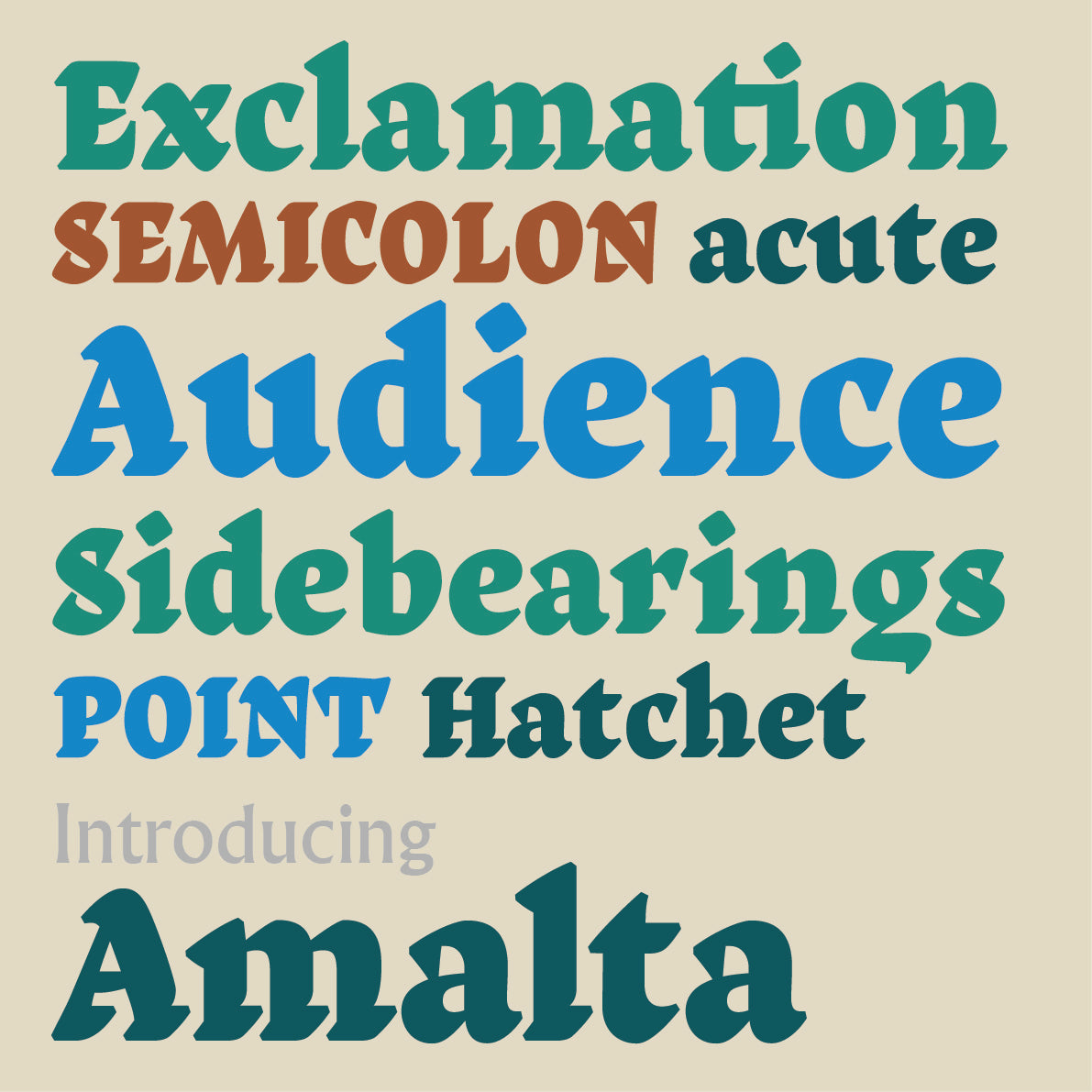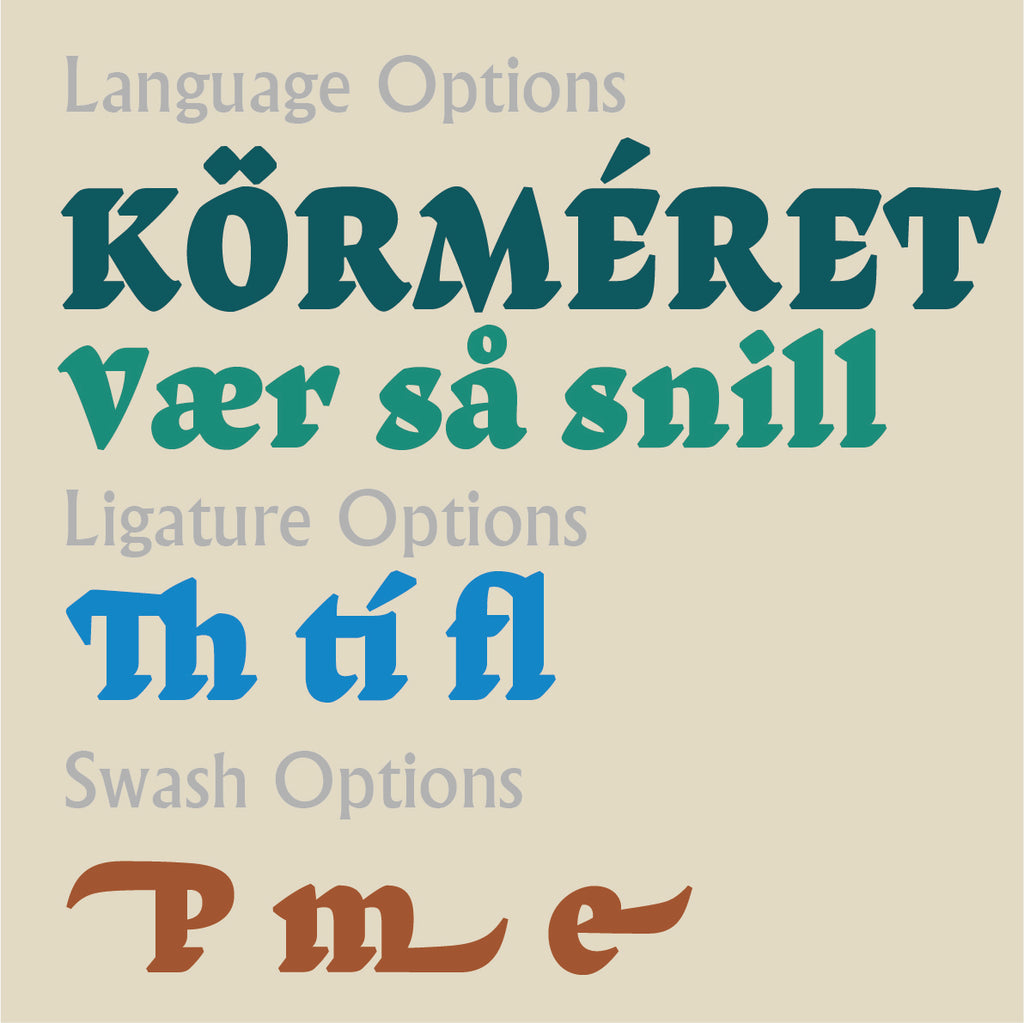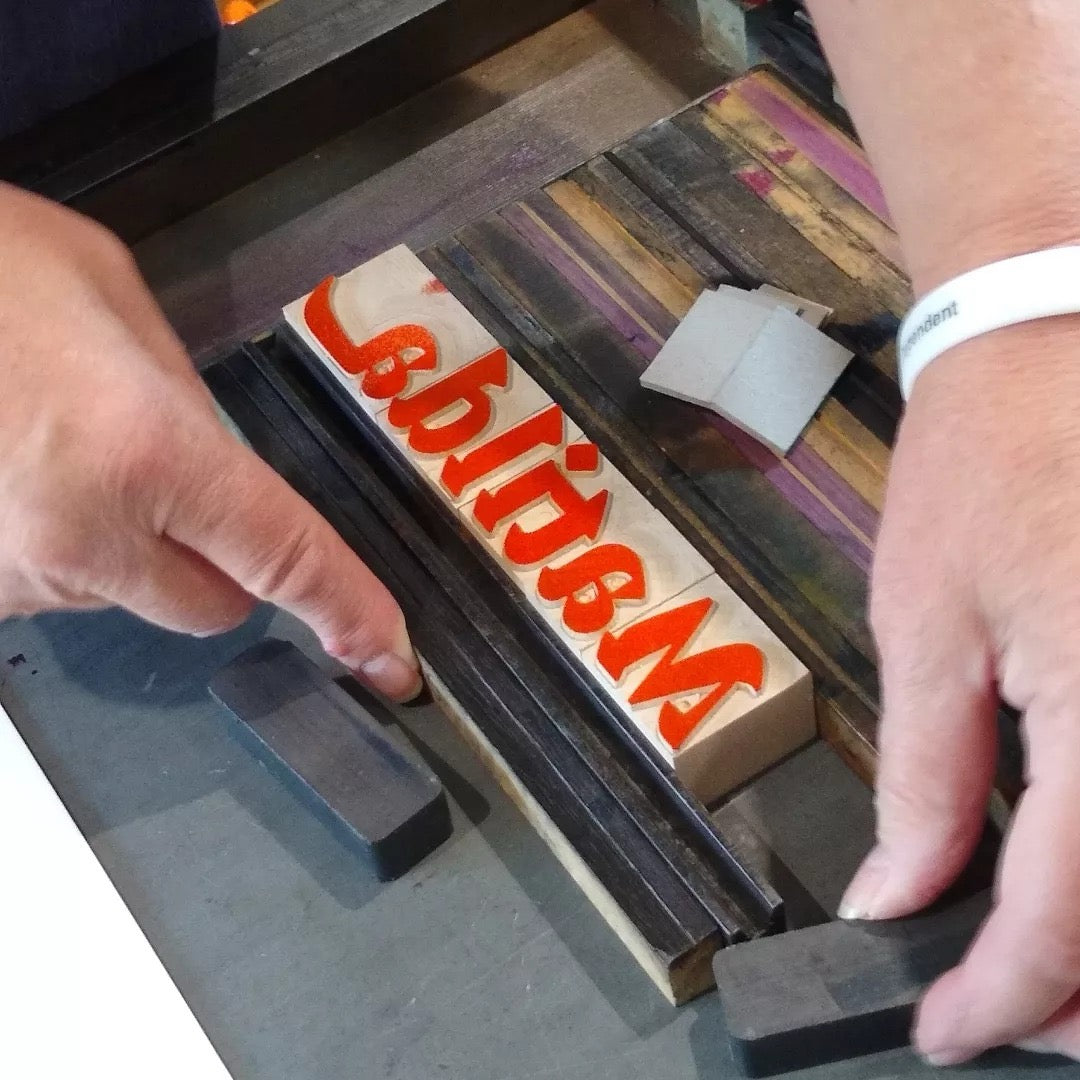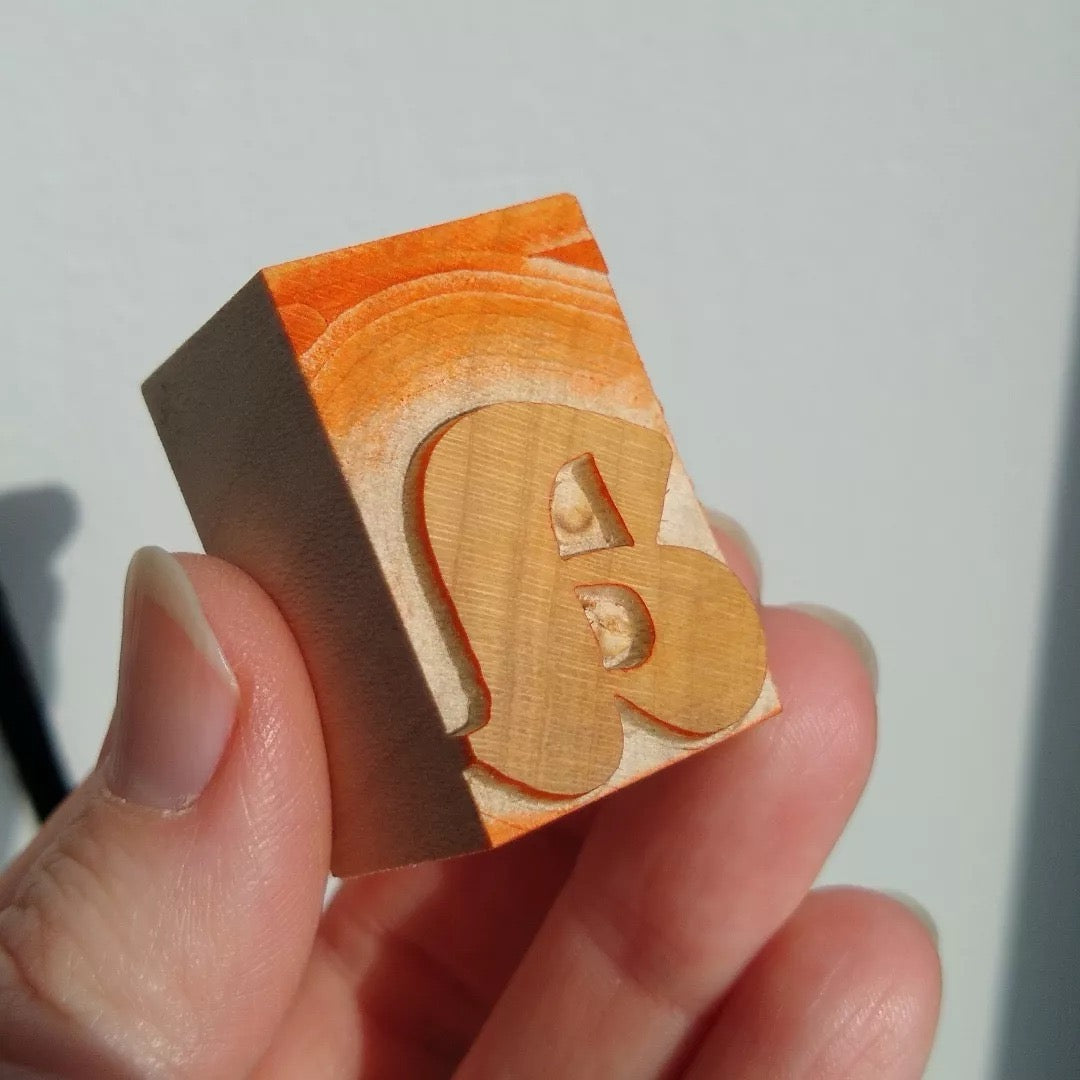
'Amalta' letterpress woodtype typeface
Introducing 'Amalta' - based on designer Vera Evstafieva's own calligraphic studies using a flat brush. Overlapping strokes and terminals are characteristic for Amalta. It features powerful black shapes and vivid counterparts. Includes ligatures, swashes, punctuation and numbers, along with diacritics for use in various languages (Afrikaans, Belarusian, Bulgarian, Czech, Danish, Dutch, English, Estonian, Finnish, French, Gaelic (Irish), Galician, German, Hungarian, Indonesian, Italian, Irish, Javanese, Lithuanian, Luxembourgish, Macedonian, Norwegian, Portuguese, Russian, Serbian, Slovenian, Spanish, Swedish, Ukrainian and Zulu).
6 line (25.4mm/1 inch) version cut from end grain English hardwood using a combination of modern CNC technology and traditional hand woodworking tools (including an original printers saw), made to English type-high (0.918in or 23.3mm) within plus or minus 0.1mm tolerance, sealed with shellac and hand finished with a traditional polished printing surface.
Available as a 3A capitals scheme (63 letters), 5a lowercase scheme (100 letters) and Numerals (23 blocks). There are also swashes and ligatures to complete the calligraphy look. Please see scheme details on the right.
For a complete breakdown of the typeface please click here (please note the woodtype version has been redrawn to accommodate the nature of letterpress printing).